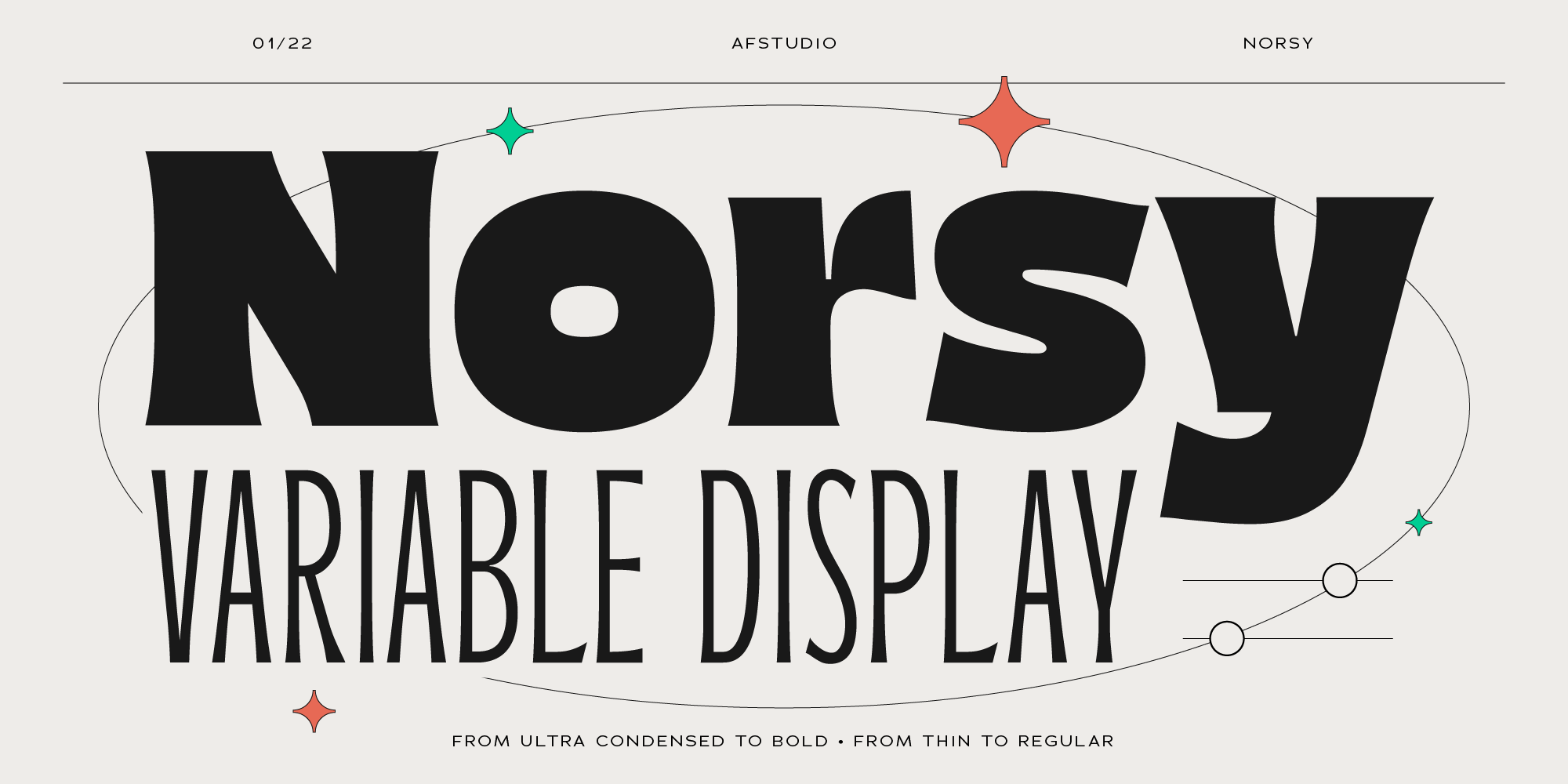
Norsy Font is a dynamic and contemporary typeface, meticulously designed to offer a unique blend of modern aesthetics with a touch of rugged charm. Its distinct character, often featuring clean lines balanced with subtle imperfections or a strong, confident presence, makes it an ideal choice for projects that aim to convey strength, innovation, or an adventurous spirit. Imagine Norsy Font defining the branding for outdoor apparel, adding an edgy yet refined look to tech startup websites, or bringing a powerful visual impact to magazine headlines. This versatile font also excels in areas like gaming interfaces, extreme sports branding, or any design where you want to communicate boldness, resilience, and a forward-thinking attitude.
What makes Norsy Font truly exciting is its ability to command attention while maintaining excellent legibility. It’s a font that doesn’t shy away from making a statement, often possessing characteristics that suggest both industrial strength and creative flair. Designers are constantly on the lookout for typefaces that can stand out in a competitive visual landscape without sacrificing functionality, and Norsy Font perfectly achieves this balance. Its unique design allows it to be both memorable and highly readable across various sizes and applications, from striking logos to effective body text.
The Norsy Font family typically includes a range of weights and styles, such as Regular, Bold, and potentially an Italic or a distressed version, providing valuable flexibility for diverse design needs. These variations are essential for designers to establish clear visual hierarchies, add emphasis, and maintain a consistent stylistic thread across different elements of a project. Whether you need a powerful headline for an impactful advertisement or clear, strong text for technical diagrams, the comprehensive choices within the Norsy Font family ensure ample creative freedom. For designs that demand a blend of modern power and undeniable character, remember to explore Norsy Font Free Download.